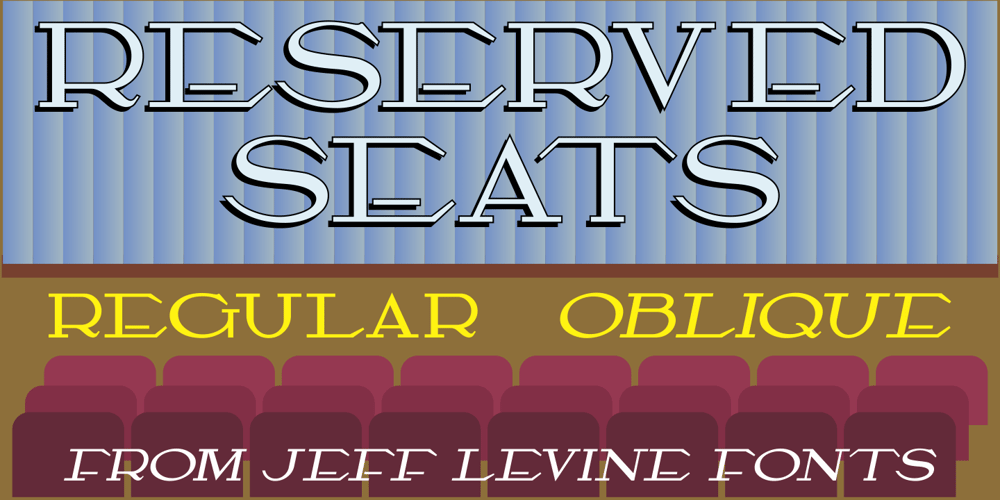
Reserved Seats JNL Font Family was designed by Jeff Levine and published by Jeff Levine. Reserved Seats JNL contains 2 styles and family package options. The title block from the cover of the January, 1919 issue of Moving Picture Age inspired the digital typeface Reserved Seats JNL, which is available in both regular and oblique versions.An Art Nouveau slab serif design, it is typical of the hand lettering so popular in early 20th century advertising.